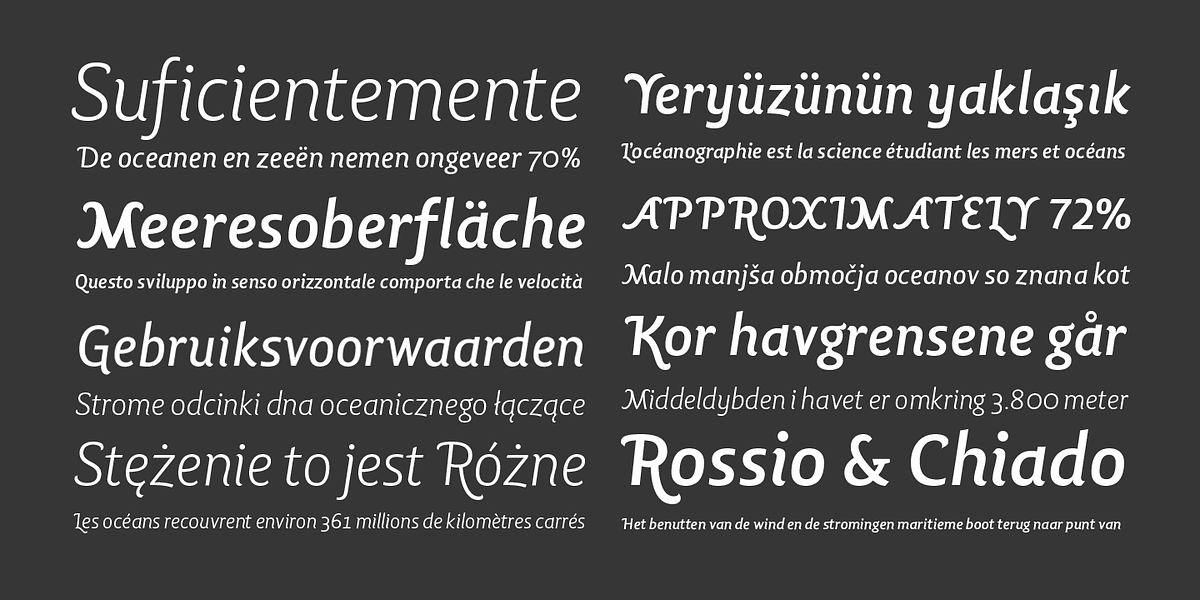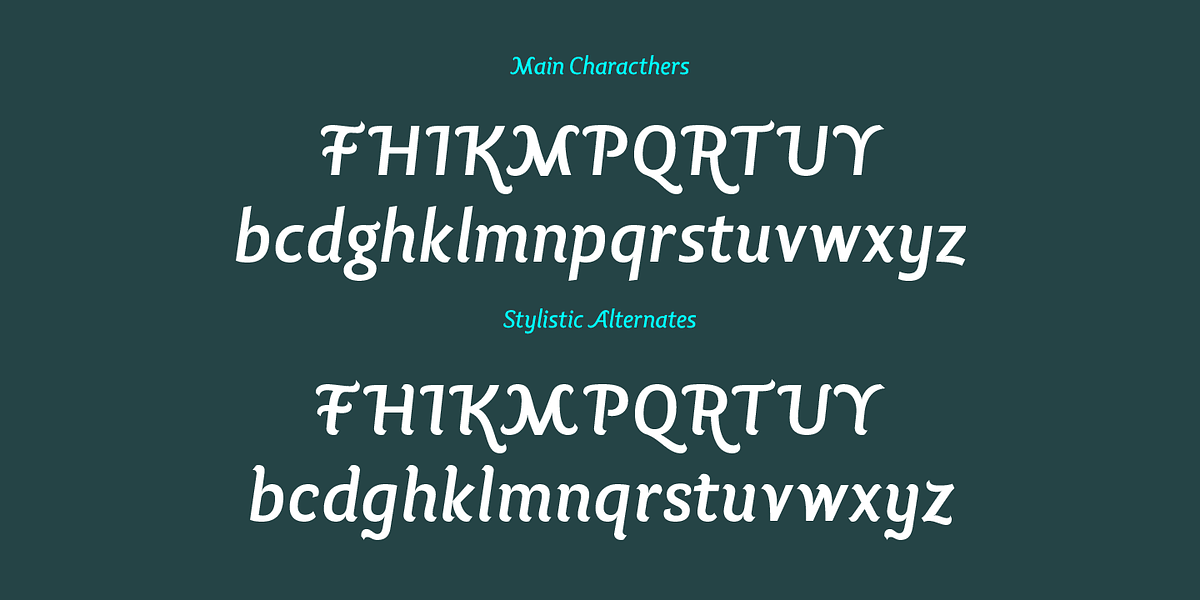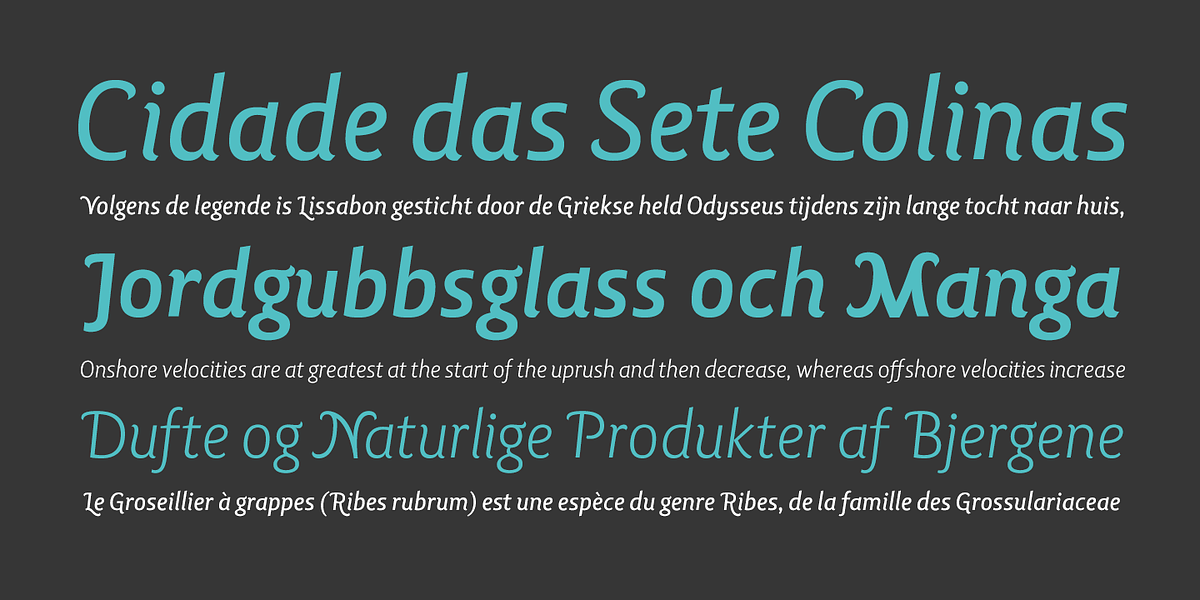
Lisboa Swash
Lisboa Swash is a humanist sans-serif typeface designed for large sizes. It features more decorative uppercase letterforms with hook-head terminals and low contrast. The typeface also includes stylish calligraphic alternate characters.